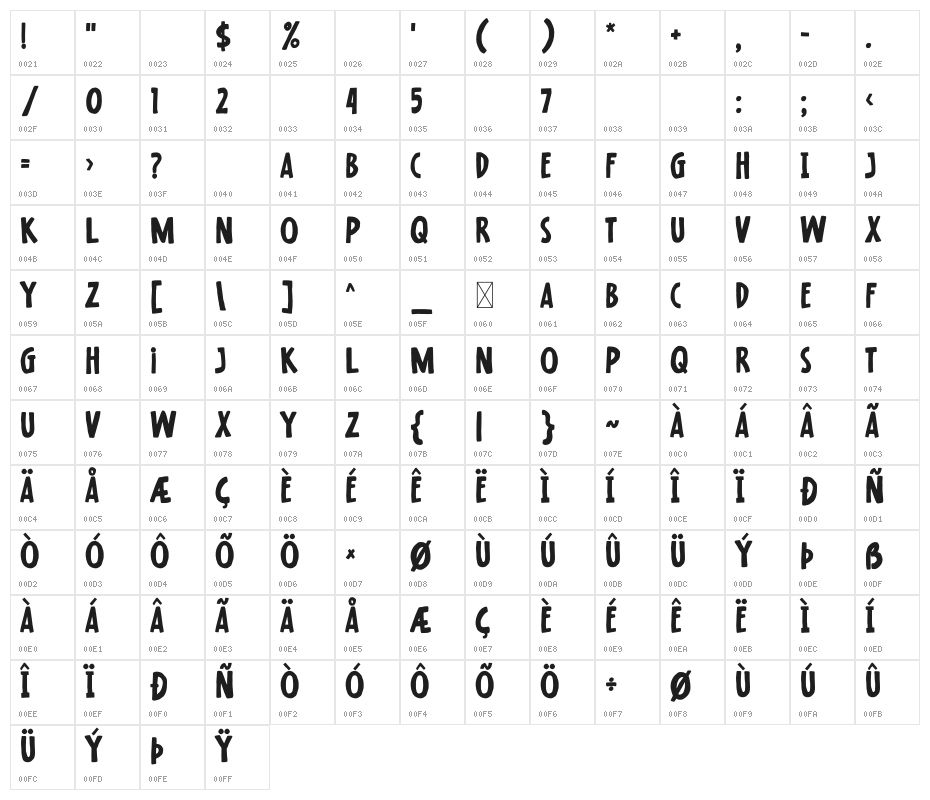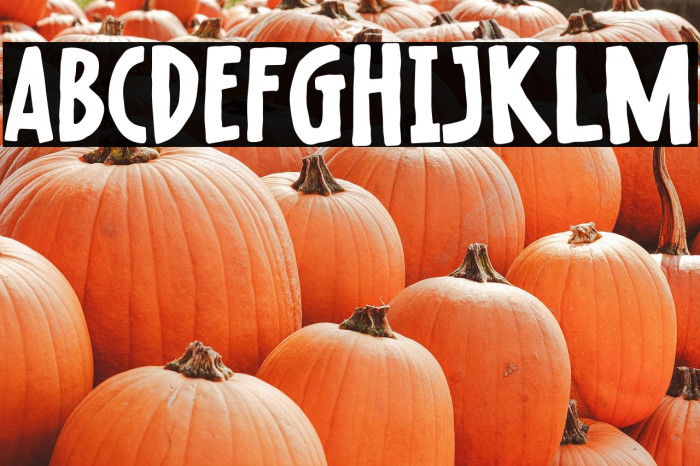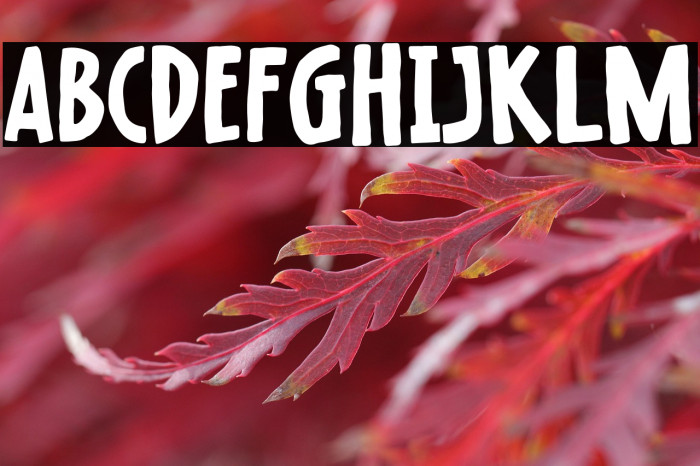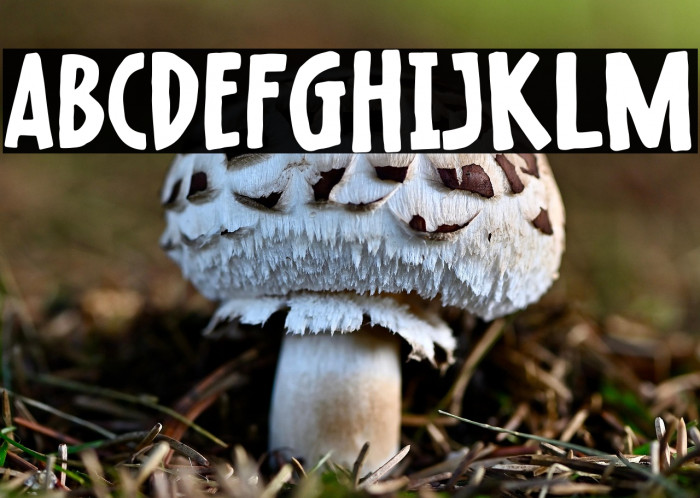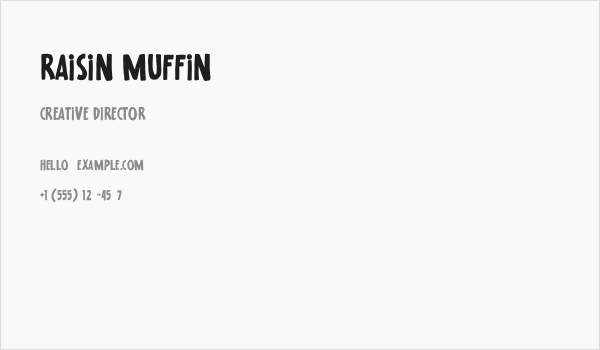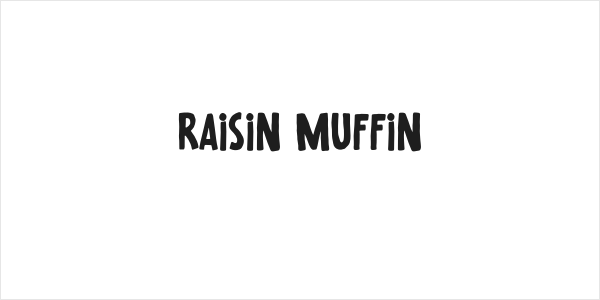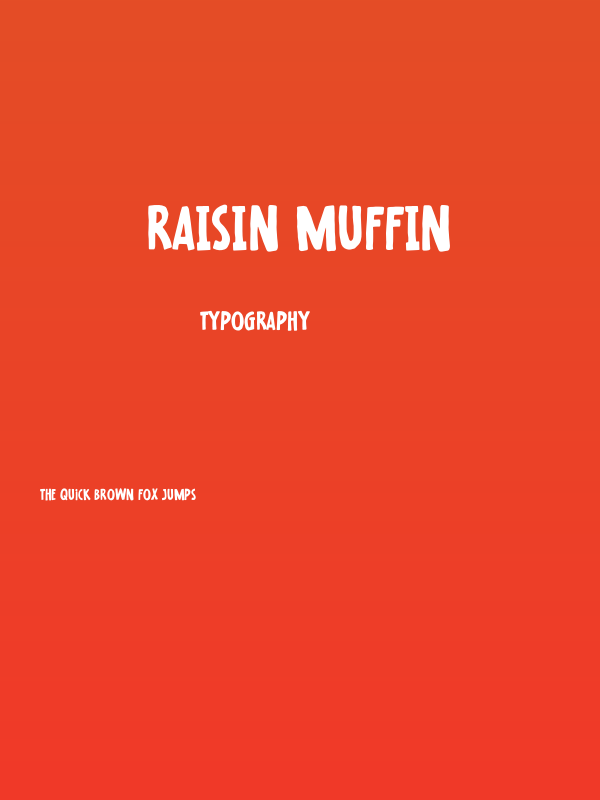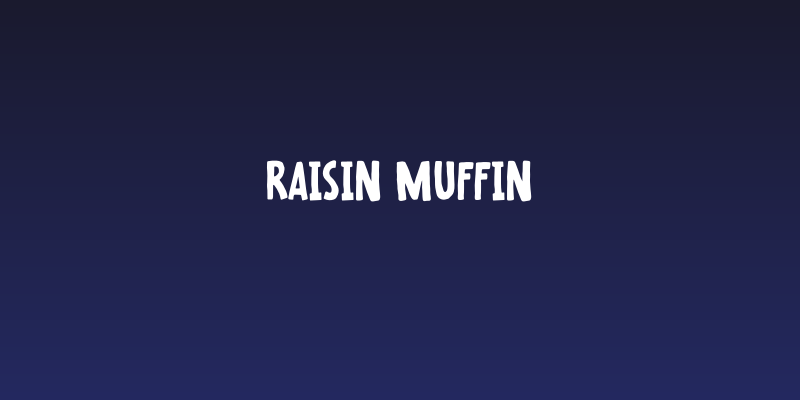
Raisin Muffin Font
Raisin Muffin Description
This font features a bold and playful style with a hand-drawn appearance. The characters are slightly irregular, giving it a whimsical and informal feel. The strokes are thick and consistent, creating a strong visual impact. The uppercase and lowercase letters maintain a cohesive look, while the numbers and special characters complement the overall design. This font is ideal for projects that require a fun and approachable aesthetic.
| Proposed Projects | Perfect for children's books, playful branding, posters, and creative invitations. |